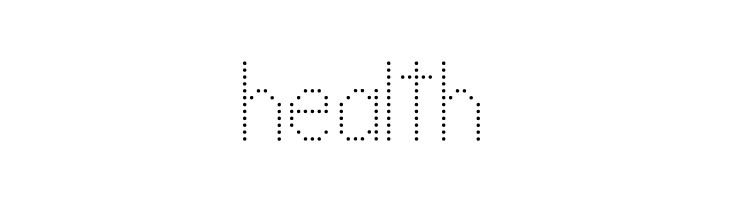
A modern, dotted font with a playful and digital aesthetic.
A modern, dot-based font with a digital, pixelated style.
A dotted, digital-style font with a retro aesthetic.
A modern, dotted font with geometric precision and playful style.